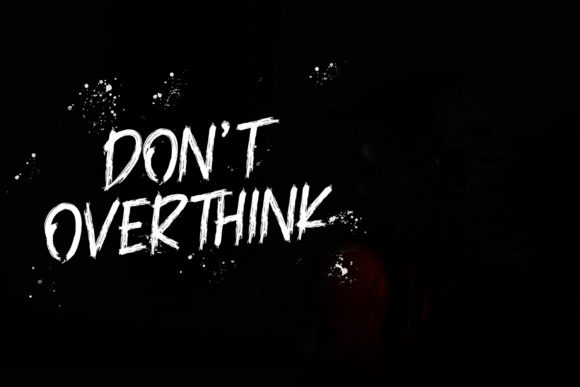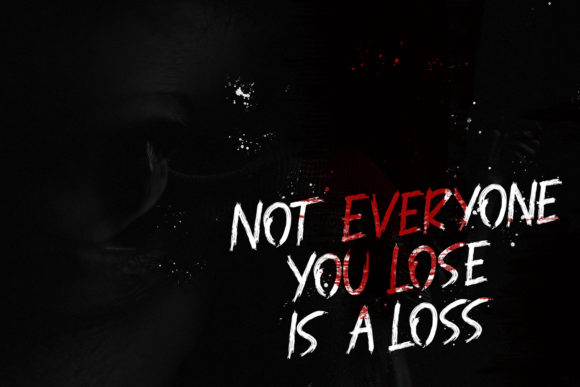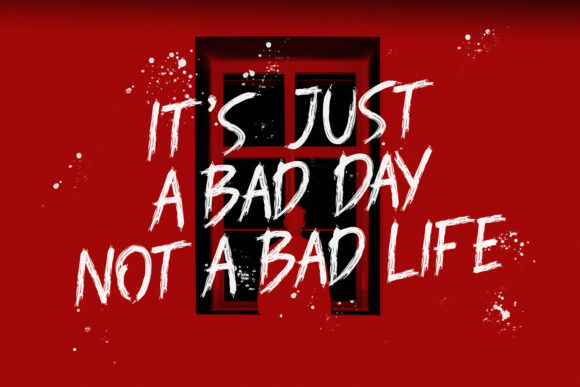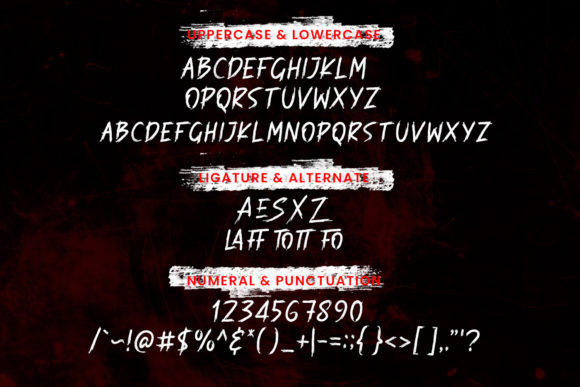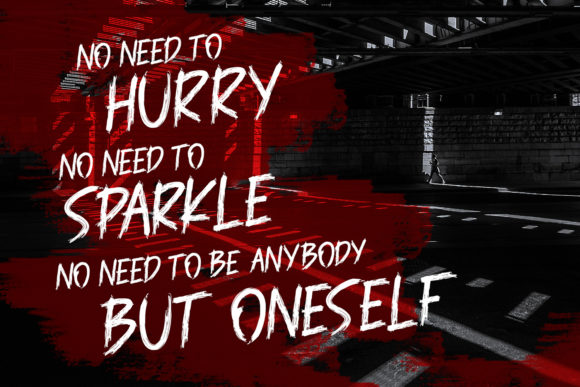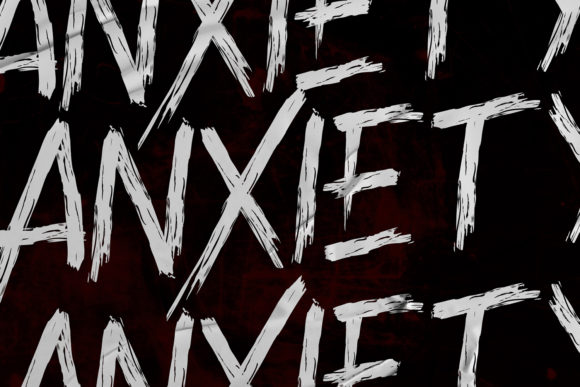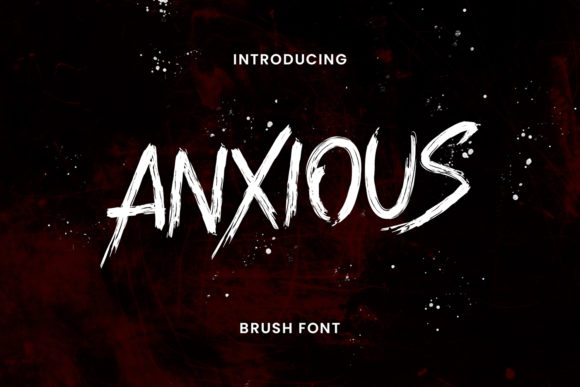
Introducing Anxious Font: The Urban Styled, Brushed Display Font
Are you tired of using the same old fonts in your designs? Do you want to add a touch of edginess and drama to your projects? Look no further than the Anxious Font, an urban styled, brushed display font that’s perfect for informal designs. In this article, we’ll take a closer look at the Anxious Font, its features, and how you can use it to elevate your designs.
What is Anxious Font?
Anxious Font is a unique, rough-textured display font that’s designed to add a touch of drama and urban grit to your designs. With its brushed strokes and irregular texture, this font is perfect for creating eye-catching headlines, titles, and captions for a variety of informal designs, including posters, flyers, brochures, and more.
Key Features of Anxious Font
- Urban Styled: Anxious Font has a distinctly urban feel, with a rough, brushed texture that gives it a tough, edgy look.
- Rough Textured: The font’s irregular texture adds a touch of realism and grit to your designs, making them stand out from the crowd.
- Dramatic: With its bold, expressive strokes, Anxious Font is perfect for creating dramatic headlines and titles that grab attention.
- Versatile: This font can be used for a variety of informal designs, including posters, flyers, brochures, and more.
Who is Anxious Font for?
Anxious Font is perfect for designers, crafters, and artists who want to add a touch of edginess and drama to their projects. Whether you’re designing a poster for a music festival, a flyer for a nightclub, or a brochure for a fashion brand, this font is sure to make your design stand out.
How to Use Anxious Font
- Use it for headlines: Anxious Font is perfect for creating bold, eye-catching headlines that grab attention.
- Experiment with colors: The font’s rough texture looks great in a variety of colors, so don’t be afraid to experiment and find the perfect color for your design.
- Pair it with other fonts: Anxious Font pairs well with a variety of other fonts, so try pairing it with a clean, sans-serif font for a contrasting look.
Benefits of Using Anxious Font
There are many benefits to using Anxious Font in your designs. Here are a few:
- Adds drama and edginess: Anxious Font adds a touch of drama and edginess to your designs, making them stand out from the crowd.
- Increases visibility: The font’s bold, expressive strokes make it easy to read, even at small sizes.
- Versatile: Anxious Font can be used for a variety of informal designs, making it a great addition to your font library.
In conclusion, Anxious Font is a unique, urban styled, brushed display font that’s perfect for informal designs. With its rough texture, dramatic strokes, and versatile design, this font is sure to add a touch of edginess and drama to your projects. Whether you’re a designer, crafter, or artist, Anxious Font is a great addition to your font library.